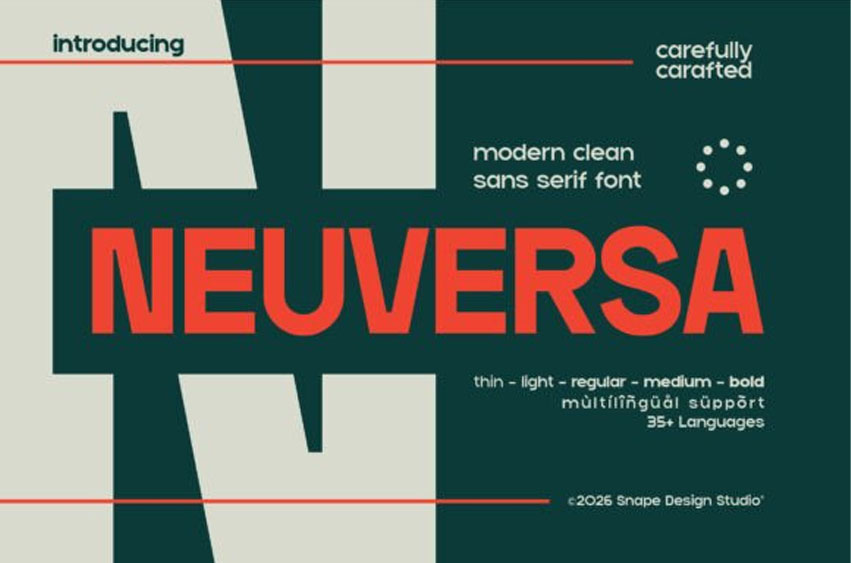
Neuversa Font
Neuversa Font Define your brand’s future with Neuversa, a high-performance sans serif designed for maximum versatility. Featuring five distinct weights—Thin, Light, Regular, Medium, and Bold—Neuversa masters the “minimalist-industrial” aesthetic.
Best Used For: Tech startup identities, corporate UI/UX design, high-visibility signage, and minimalist editorial layouts.